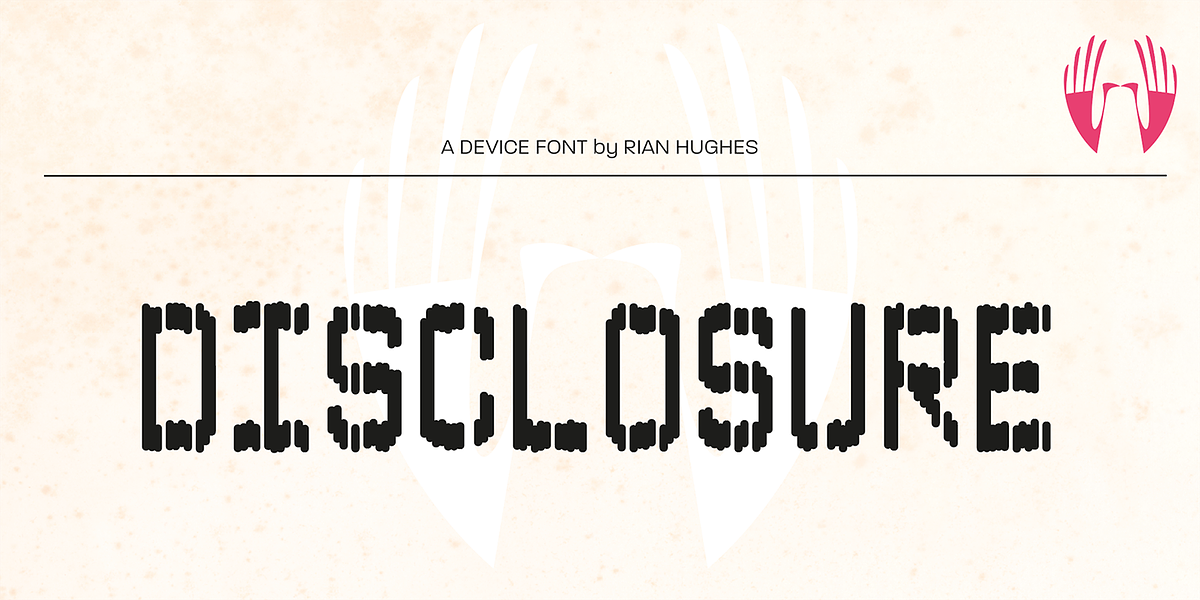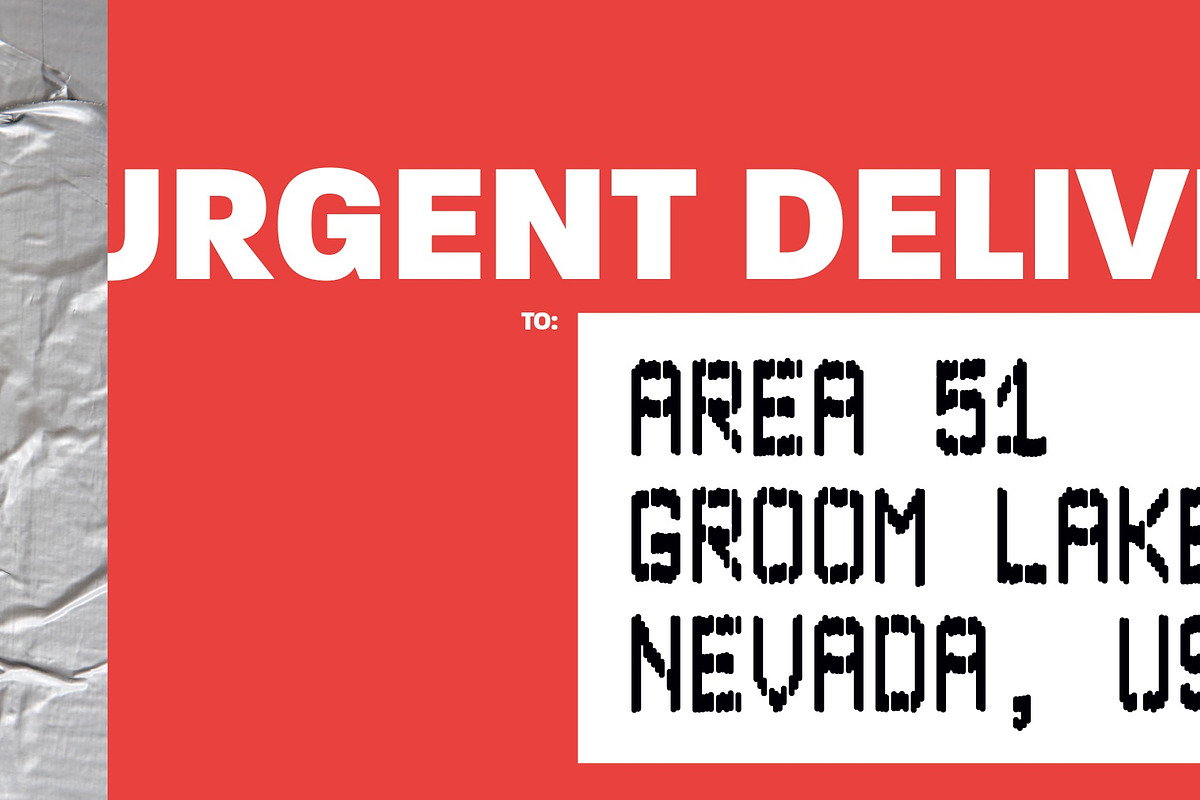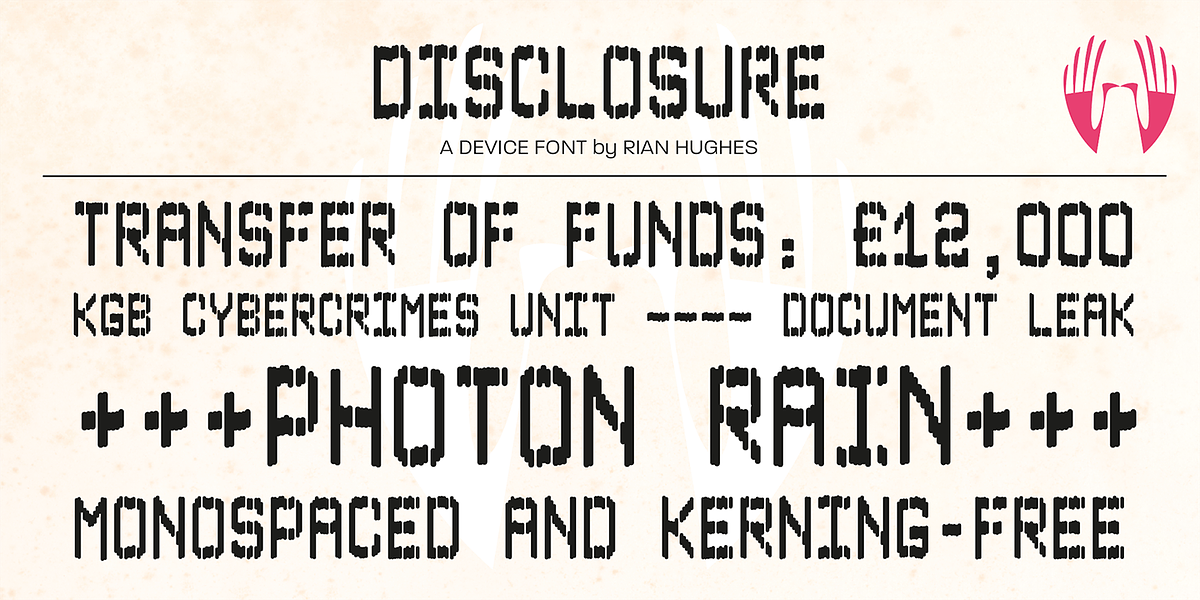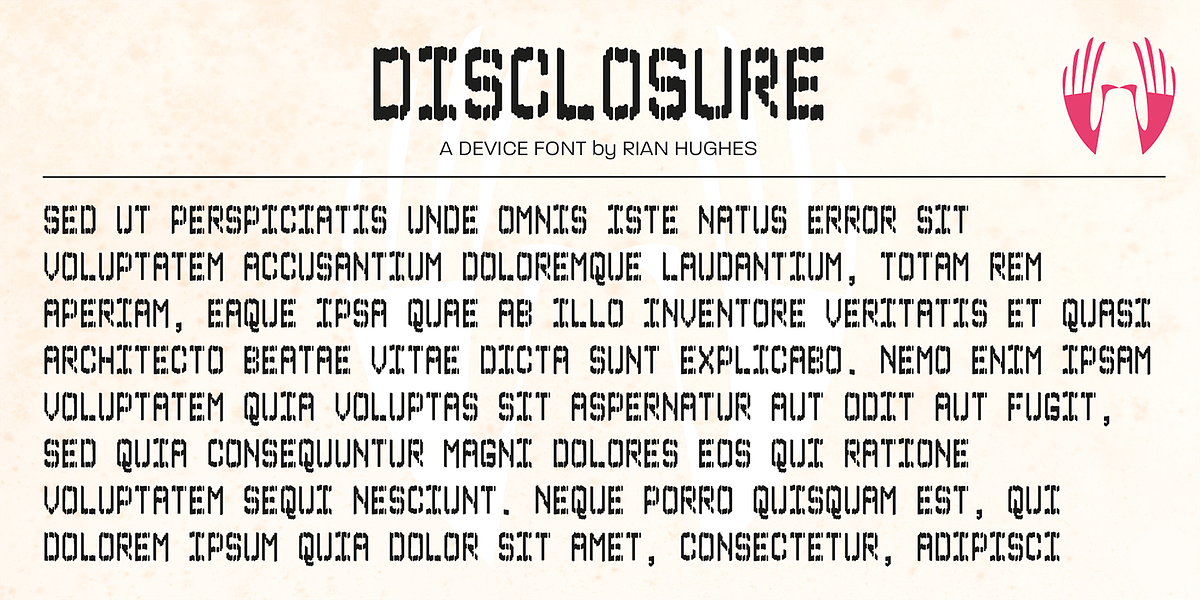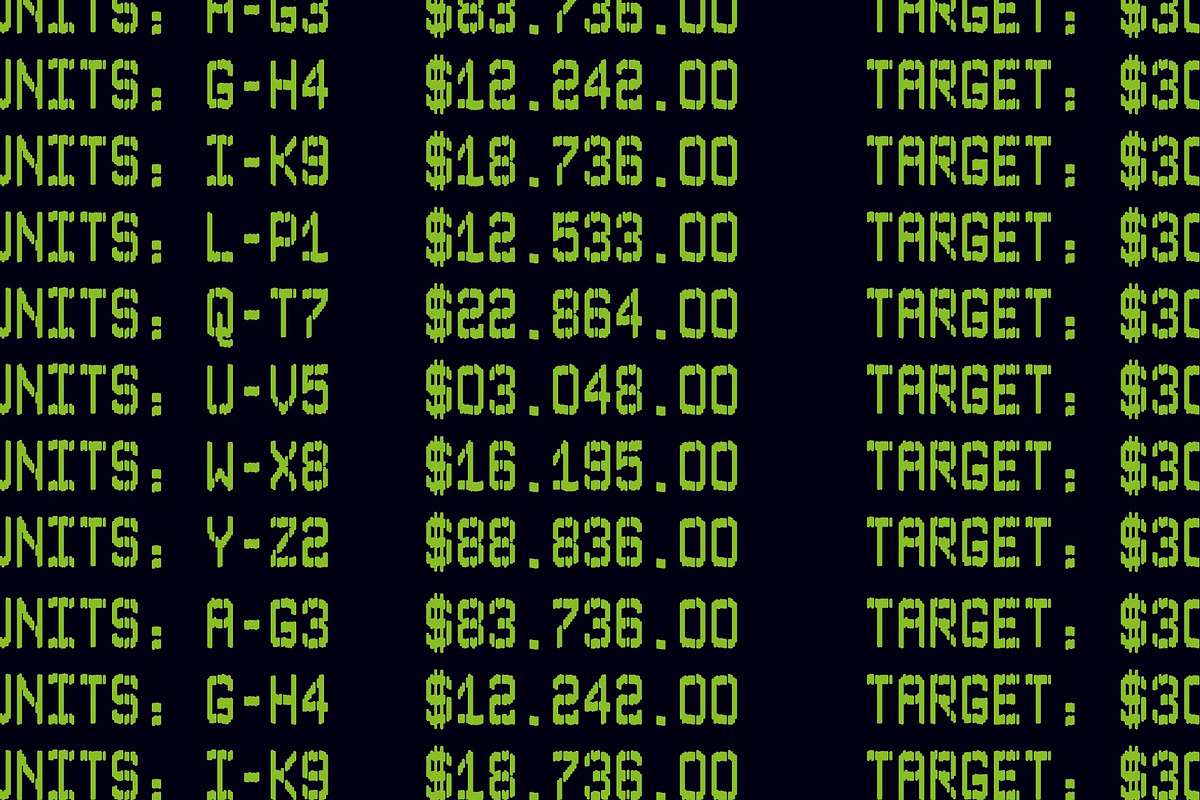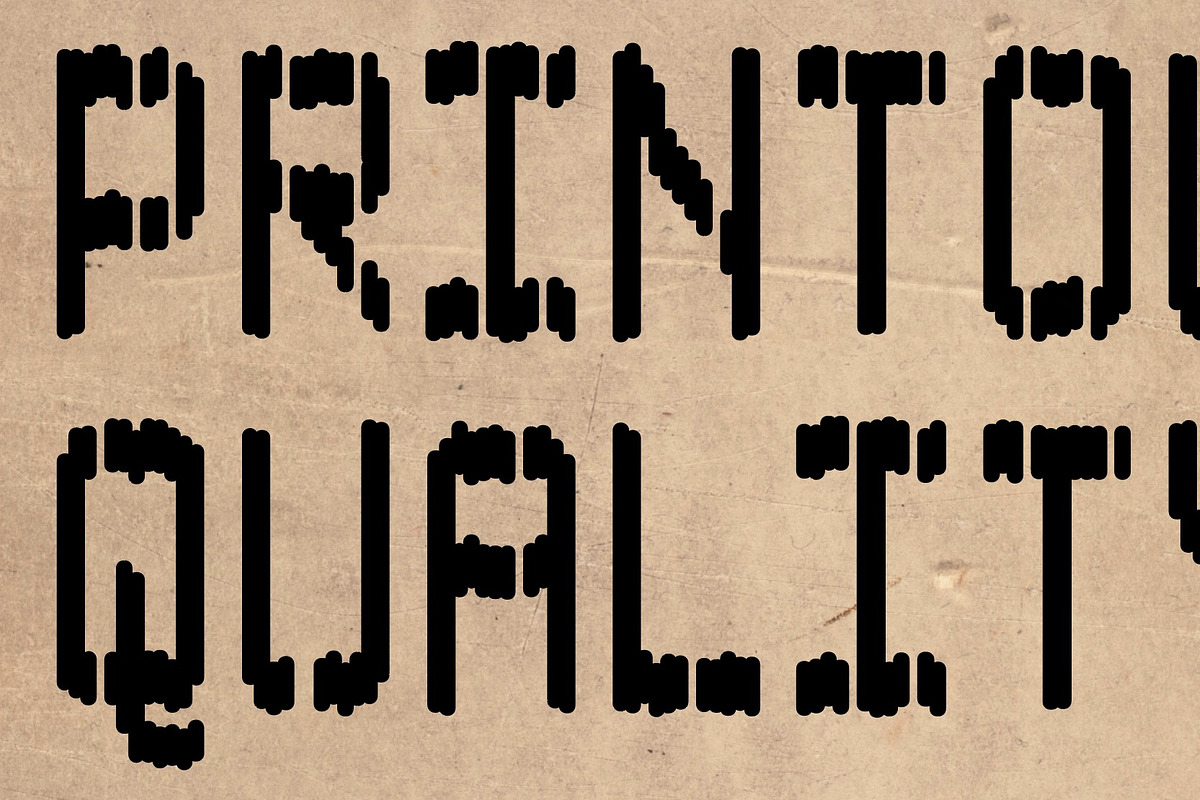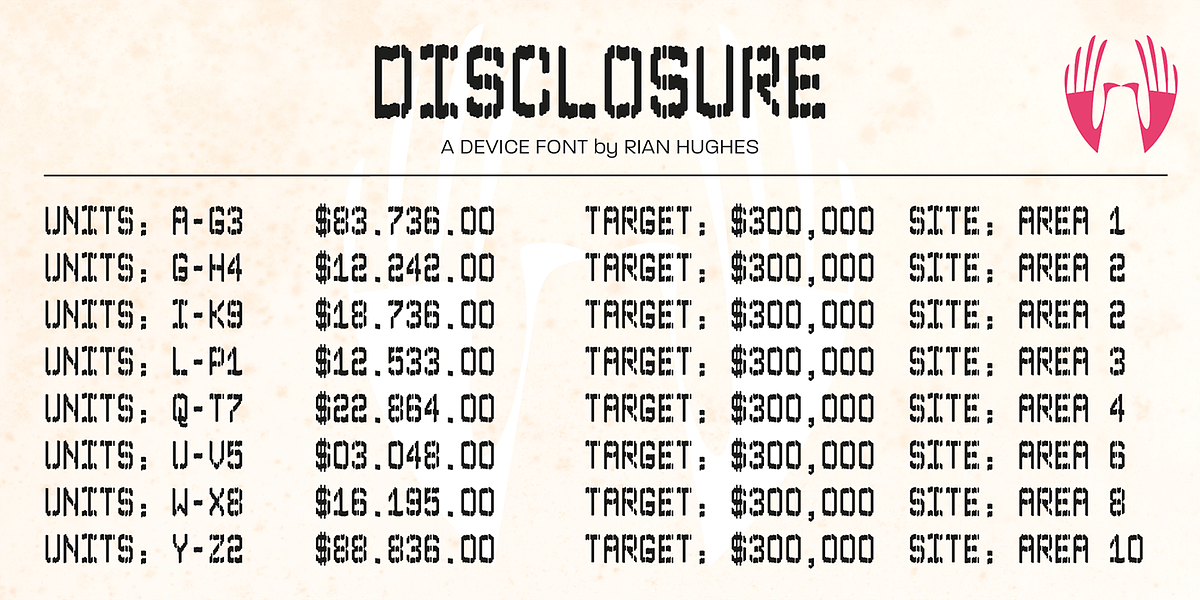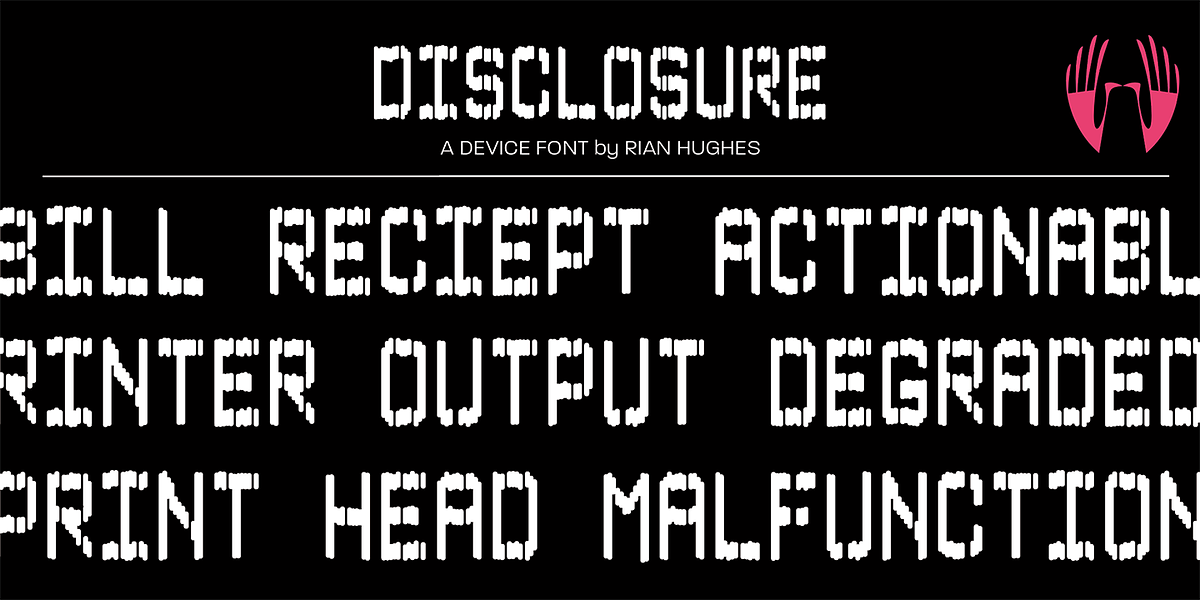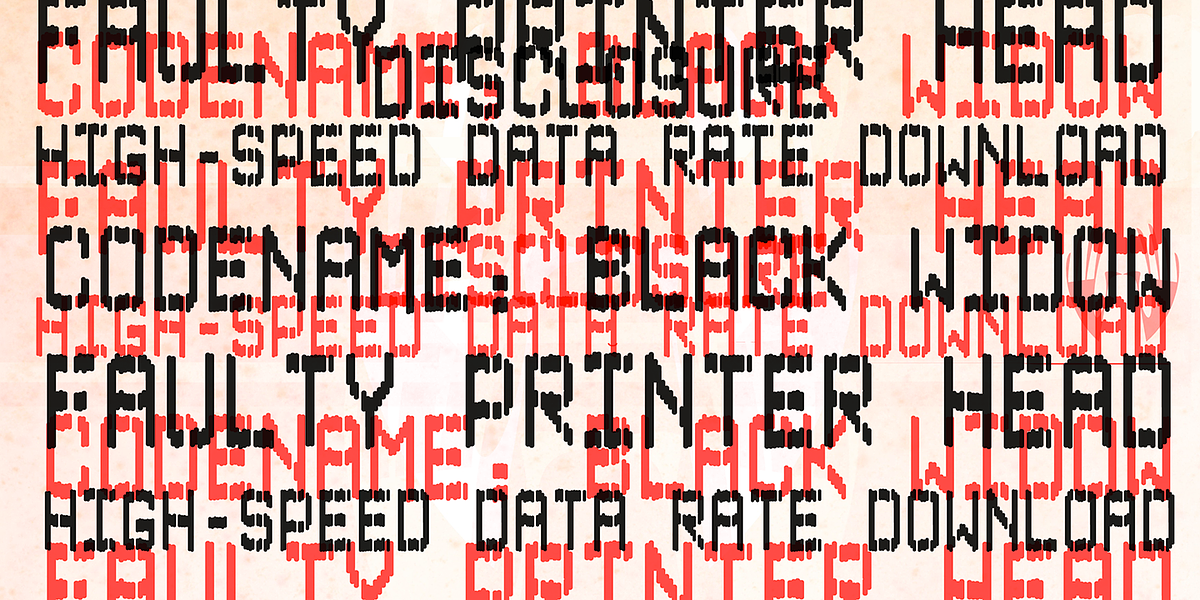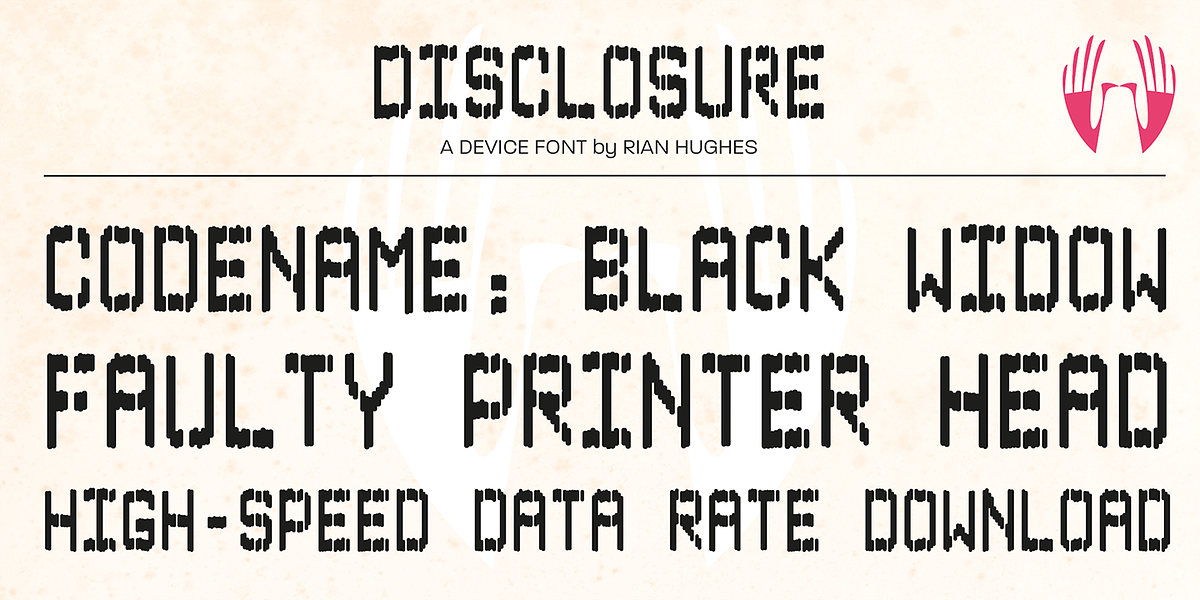
Disclosure
This display font is designed to resemble low-quality digital output, perhaps reminiscent of old fax machines or screen displays with signal degradation. Its monospaced nature and lack of kerning contribute to a sense of urgency and rawness. The font is suitable for applications requiring a bold, unfussy aesthetic.